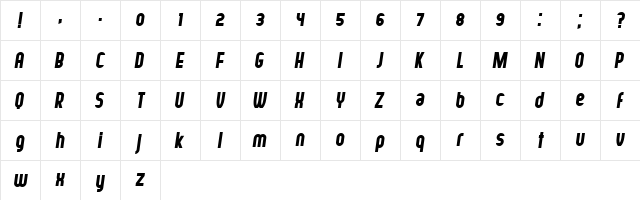
Hofmann Italic
Design Context for Hofmann Typeface
Hofmann is a composed and adaptable typeface that performs quietly and consistently across a wide range of design contexts. Its italic angle brings a sense of urgency and motion to the letterforms.
Pro Tip: Try Hofmann for annotation and caption copy alongside an upright companion — the contrast in angle creates a dynamic but ordered typographic system.